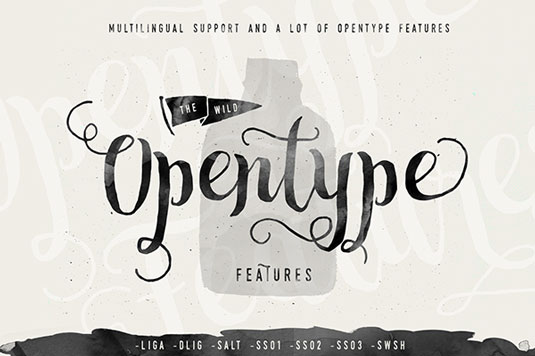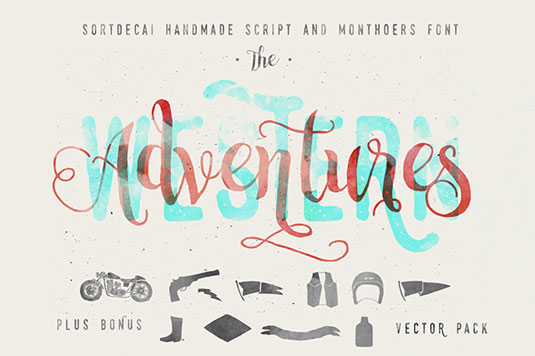
Font of the day: Sortdecai
Every day we showcase the best fonts on the web. Today it's Sortdecai by Agga Swist'blnk.
Sortdecai by Agga Swist'blnk
Today's typeface of choice is Sortdecai by graphic designer Agga Swist'blnk. "Sortdecai Handmade Script is another handlettered, modern vintage script typeface," Swist'blnk comments, "which is combines the style of classic calligraphy with an modern style."